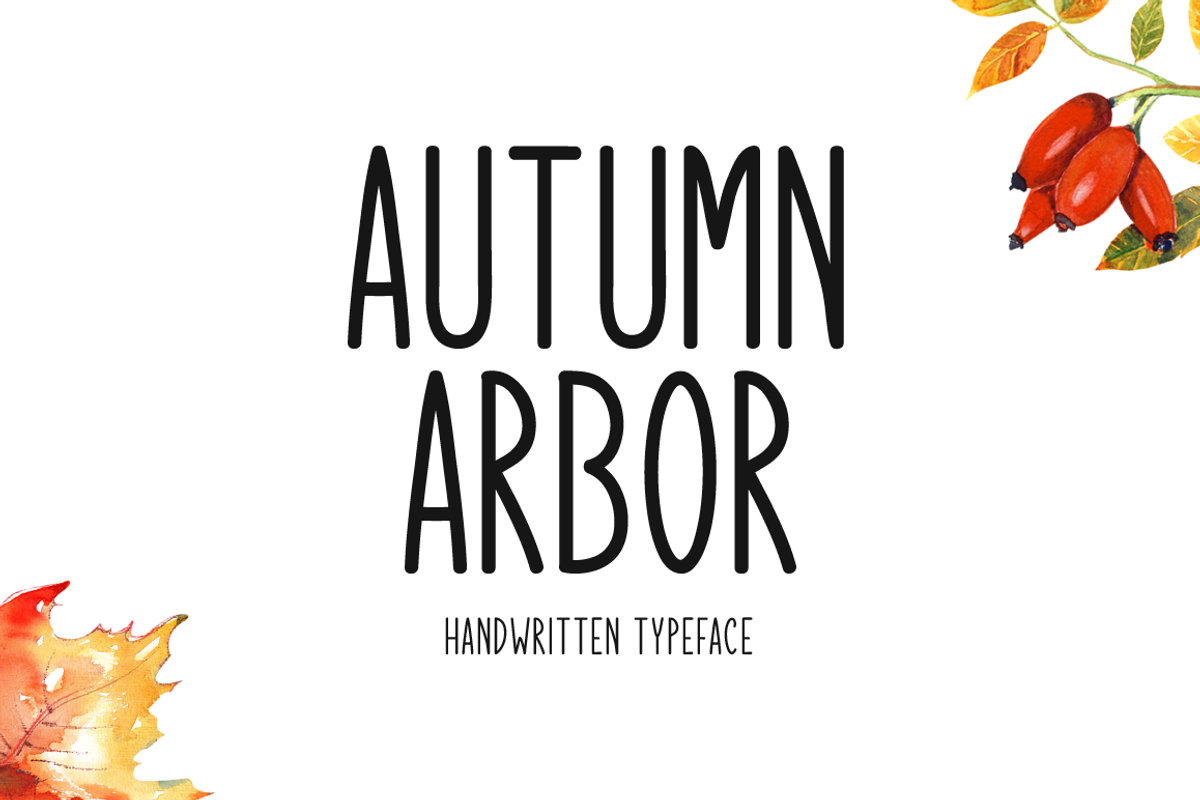
Autumn Arbor Typeface Free Download
The Autumn Arbor Typeface Free Download is a warm and charming font that captures the essence of fall with its elegant and rustic design. Perfect for creating seasonal designs, event invitations, logos, and branding, this font brings a cozy, organic feel to your projects. Please note, for commercial use, a license must be purchased. You can download it for free for testing purposes.
With its flowing curves and earthy appeal, the Autumn Arbor Typeface Free Download is ideal for designs that evoke nature, warmth, and creativity. Whether you’re working on fall-themed graphics, social media posts, or any project requiring a natural touch, this font adds an inviting, seasonal vibe.